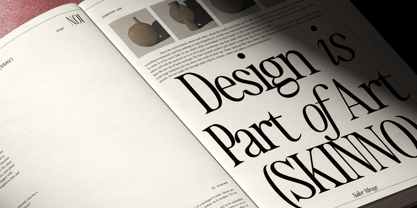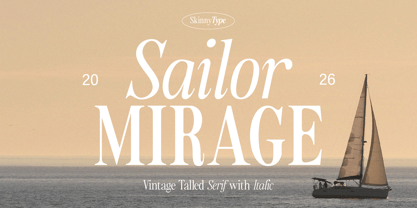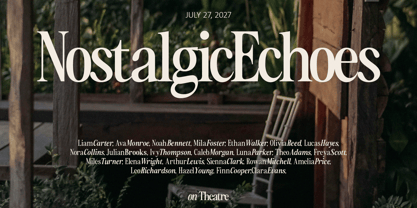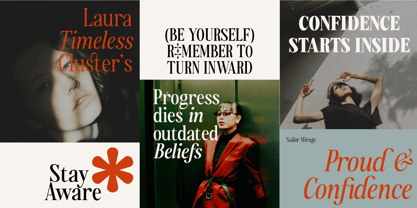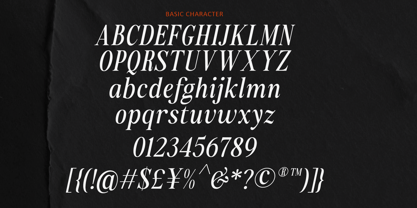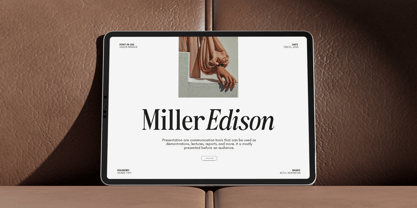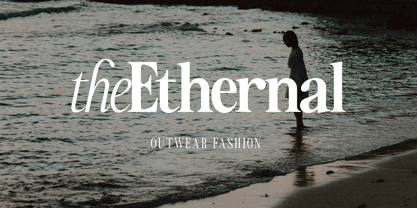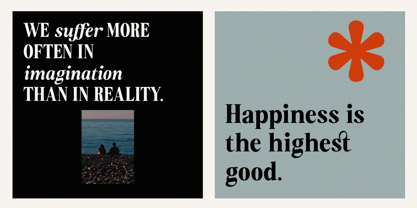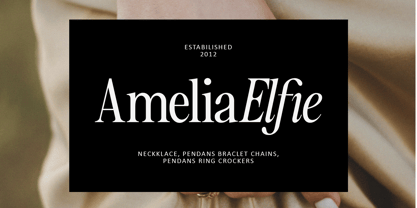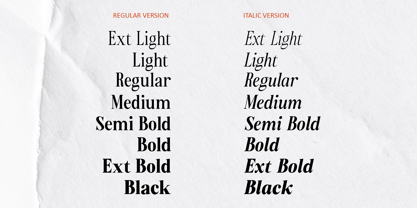
Sailor Mirage
The Sailor Mirage Font Family was designed by Muhajir and published by Skinny Type. Sailor Mirage contains 18 styles and family package options. More about this family
Sailor Mirage is a vintage tall serif typeface designed with elegant proportions and a timeless editorial character, offering a complete system of 8 weights with matching true italics for maximum versatility. Its slender letterforms, balanced contrast, and softly tapered serifs draw inspiration from classic book typography and mid-century design, creating a refined yet warm visual tone. Each italic style is carefully crafted to feel fluid and expressive rather than mechanically slanted, adding movement and romance to layouts. With its wide weight range and consistent rhythm, Sailor Mirage adapts seamlessly from delicate headlines to bold statements, making it ideal for fashion, editorial, luxury branding, and cinematic typography that values depth, hierarchy, and enduring elegance. Sailor Mirage is rooted in the idea that typography should feel enduring rather than temporary. It is built on respect for classical serif traditions book typography, editorial elegance, and crafted letterforms while reinterpreting them through tall proportions and a broad weight system to meet contemporary design needs. Every weight and italic is designed to work in harmony, allowing hierarchy, emotion, and emphasis to emerge naturally within a single family. Sailor Mirage embraces restraint, balance, and nuance, believing that true luxury lies in quiet confidence, thoughtful details, and a typographic voice that remains expressive across time, trends, and contexts.